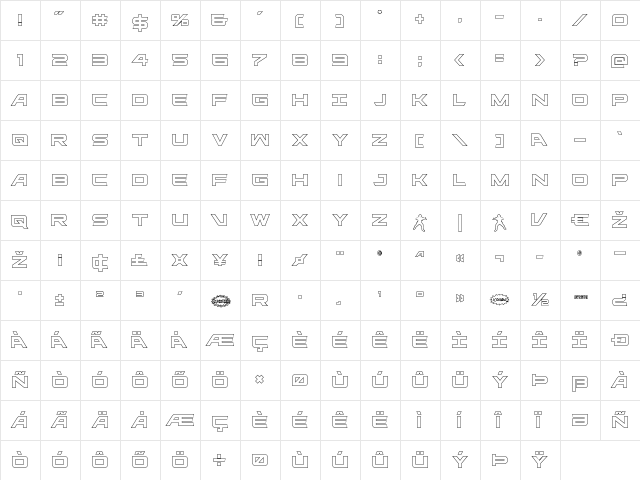
Ghost Clan Outline Regular
Design Context for Ghost Clan Outline Typeface
Ghost Clan Outline brings ornamental detail and strong personality to headlines and identities, where visual impact matters more than quiet functionality.
Font Pairing: Pair with a clean neutral sans-serif for body copy to let Ghost Clan Outline's character lead without overwhelming the composition.
Pro Tip: Treat Ghost Clan Outline as the centrepiece of your typographic hierarchy. One strong heading set in a decorative face can carry an entire layout.